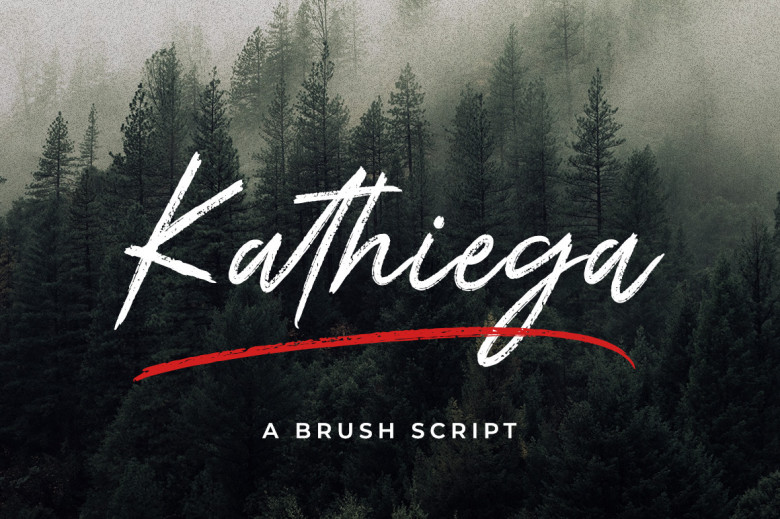
Kathiega Font
Kathiega is an informal handwriting brush script font written in a natural and relaxed style. Letters were formed using brushes on paper before being scanned into vector format for use on blog titles, posters, wedding decorations, T-shirts clothing book covers greeting cards merchandise branding etc.
This typeface makes an excellent addition to any professional endeavor such as blog titles posters wedding decorations t-shirts clothing book covers greeting cards merchandise branding etc.
Kathiega Brush Font